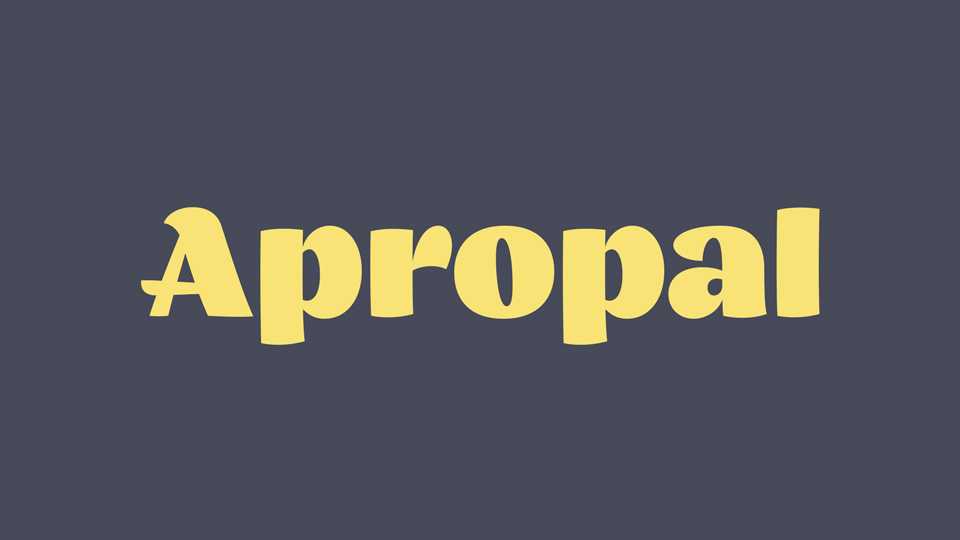
Download Apropal font, a sans-serif display typeface, ideal for decorative signs, also with a vertical text direction. This font is inspired by the “Czytelnik” bookstore, the information signs from Warsaw’s Zoo, and designs found in the “Lettering Techniques” book manual, by Jan Wojeński.
Designer: Rafał Buchner